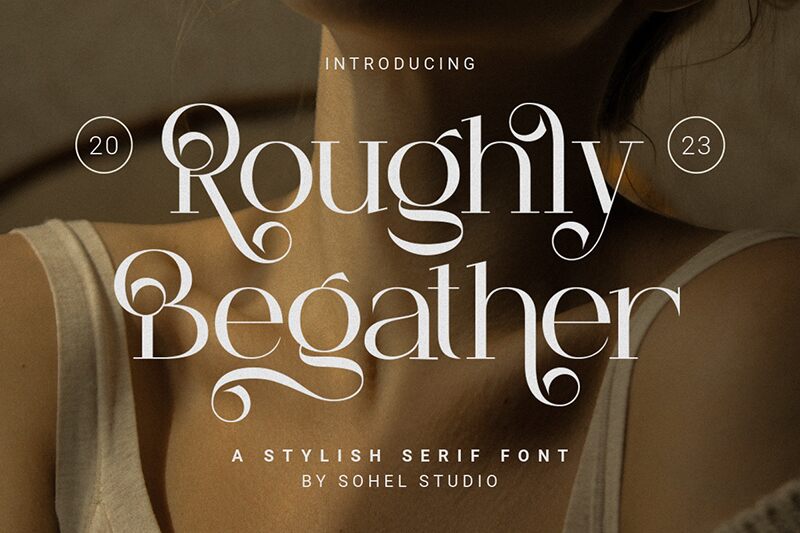
Roughly Begather font by Sohel Studio delivers an elegant, modern look with refined aesthetics and a sophisticated mood. This free serif font combines artistry and professionalism, offering clear shapes with soft curves and naturally connected lines—its crips forms personify beauty within every character.
The typeface is perfect for wedding invitations, anniversary cards, certificates, planners titles, magazines covers designs, article titles and headings. Enjoy using it on catalogs covers or inside, TV show credits or even product packaging especially clothing products’ labels.